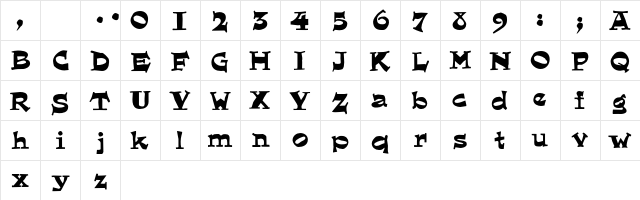
Eglantine Regular
Design Context for Eglantine Typeface
Eglantine is a composed and adaptable typeface that performs quietly and consistently across a wide range of design contexts.
Pro Tip: Use Eglantine in both headline and body roles to test its range before committing to a single application.